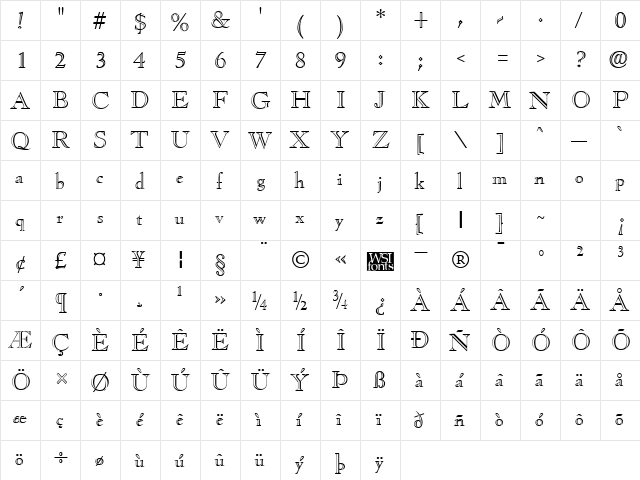
CasqueOpenFace Regular
Design Context for CasqueOpenFace Typeface
CasqueOpenFace offers clean, dependable letterforms without strong stylistic allegiance, making it a practical choice for designers who need flexibility.
Pro Tip: Use CasqueOpenFace in both headline and body roles to test its range before committing to a single application.